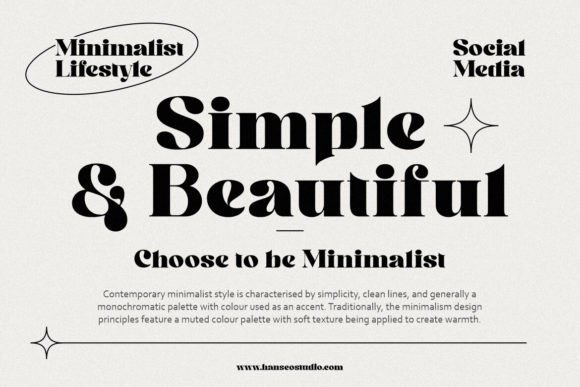
Cogley Font: Elevate Your Designs with a Vintage and Retro Touch
In the world of typography, fonts play a crucial role in conveying the tone and aesthetic of a design. For those seeking a unique and eye-catching serif typeface with a vintage and retro look, the Cogley Font is an excellent choice. This comprehensive article will explore the features, benefits, and uses of the Cogley Font, making it an essential read for designers, artists, and anyone looking to add a special touch to their creative projects.
What is Cogley Font?
Cogley Font is a serif typeface designed to evoke a sense of nostalgia and sophistication. Its vintage and retro aesthetic makes it perfect for designs that require a touch of classic elegance. The font is equipped with a complete set of characters, including uppercase letters, lowercase letters, numbers, punctuation marks, and multi-lingual support, making it versatile and ready to use in various projects.
Key Benefits of Cogley Font
- Unique and eye-catching design: The Cogley Font boasts a distinctive serif style that sets it apart from other typefaces, making it perfect for designs that require a touch of personality.
- Vintage and retro aesthetic: The font’s classic look and feel evoke a sense of nostalgia, making it ideal for designs that require a vintage or retro touch.
- Complete character set: The font includes a comprehensive set of characters, ensuring that you have everything you need to create professional-looking designs.
- Multi-lingual support: The Cogley Font supports multiple languages, making it a great choice for global brands and designers who work with clients from diverse linguistic backgrounds.
Creative Projects that Cogley Font is Perfect For
The Cogley Font is an incredibly versatile typeface that can be used in a wide range of creative projects, including:
- Logotype and branding: The font’s unique design and vintage aesthetic make it perfect for creating memorable logos and brand identities.
- Stickers and packaging design: The Cogley Font is well-suited for designing stickers, labels, and packaging materials that require a touch of personality and elegance.
- Cricut projects: The font’s compatibility with Cricut machines makes it easy to incorporate into your cutting projects, from paper crafts to vinyl designs.
- Headlines and titles: The Cogley Font is perfect for creating eye-catching headlines and titles for posters, magazines, books, and other publications.
- T-shirt and apparel design: The font’s unique design and vintage aesthetic make it ideal for designing t-shirts, hoodies, and other apparel items.
- Posters and magazines: The Cogley Font is well-suited for designing posters, magazines, and other print materials that require a touch of sophistication and elegance.
- Books and publishing: The font’s classic design makes it perfect for book titles, subtitles, and body text.
- YouTube and Instagram: The Cogley Font can be used to create engaging titles, descriptions, and graphics for YouTube videos and Instagram posts.
- Websites and Canva: The font’s versatility makes it suitable for use on websites, blogs, and social media platforms, as well as in Canva designs.
- Corjl and other design platforms: The Cogley Font is compatible with various design platforms, including Corjl, making it easy to incorporate into your designs.
Tips for Using Cogley Font in Your Designs
To get the most out of the Cogley Font, consider the following design tips:
- Experiment with font sizes: The Cogley Font looks great in various sizes, from large headlines to smaller body text.
- Pair with complementary fonts: Combine the Cogley Font with other fonts to create visually appealing and harmonious designs.
- Play with colors and textures: The Cogley Font looks great in various colors and textures, so don’t be afraid to experiment and find the perfect combination for your design.
- Use it sparingly: While the Cogley Font is a beautiful typeface, it’s best to use it sparingly to avoid overwhelming your design.
In conclusion, the Cogley Font is a versatile and beautiful serif typeface that can add a touch of vintage and retro elegance to any design. With its complete character set, multi-lingual support, and compatibility with various design platforms, it’s an excellent choice for designers, artists, and anyone looking to create professional-looking designs. Whether you’re working on a logotype, stickers, packaging design, or any other creative project, the Cogley Font is sure to impress.